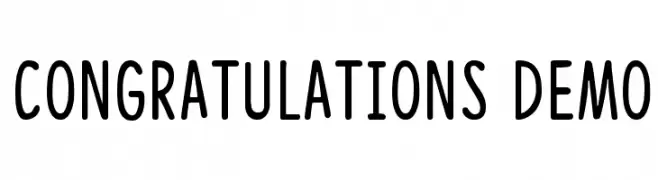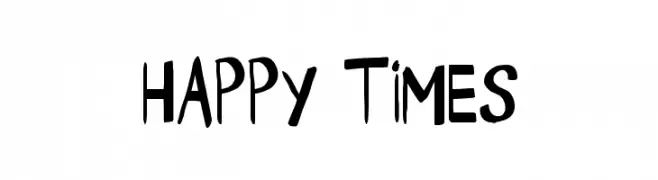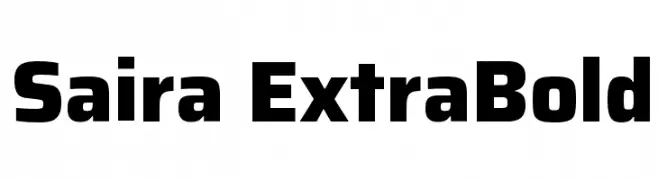
A bold, modern typeface with thick strokes and a strong presence.
A modern, clean sans-serif font with rounded edges and uniform strokes.
A playful, hand-drawn font with a whimsical, cartoon-like style.
A geometric, web-like font with intersecting lines and sharp edges.
A modern geometric font with angular shapes and clean lines.
A distressed, grungy font with rough, textured edges and an edgy, chaotic style.